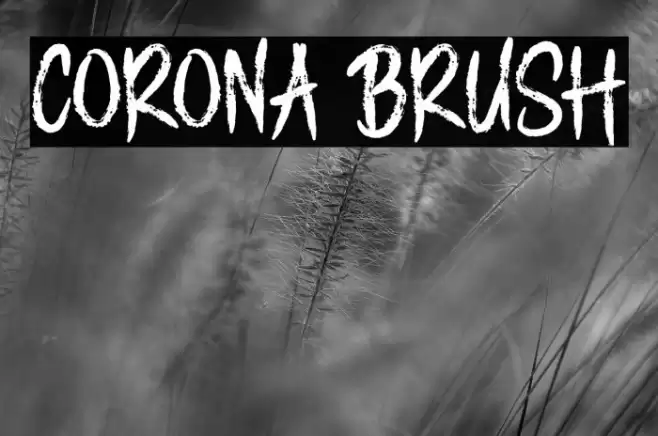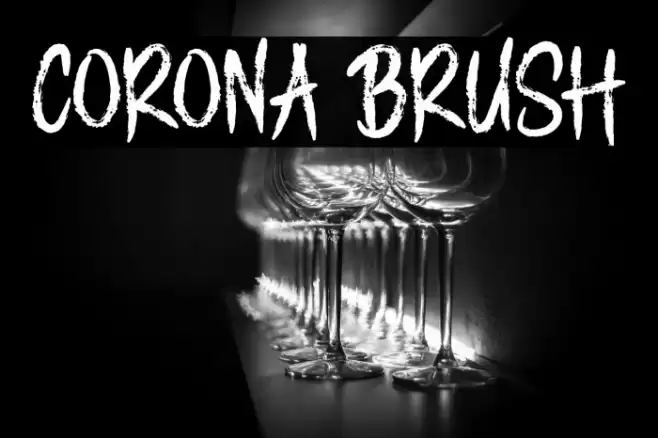
CORONA BRUSH Font
CORONA BRUSH Description
This font exudes a dynamic and energetic feel, characterized by its brush-like strokes that give it a hand-painted appearance. The letters are bold and slightly irregular, adding a sense of movement and spontaneity. The uppercase and lowercase letters maintain a consistent style, with rounded edges and varying stroke thicknesses that enhance its artistic flair. Numbers and special characters follow the same brush-stroke style, ensuring a cohesive look across all elements. This font is perfect for projects that require a personal touch or a creative, informal vibe.
A bold, brush-style font with dynamic, hand-painted strokes from Regular fonts.
- Proposed Projects: Ideal for posters, branding, social media graphics, and creative projects that need a personal, artistic touch.